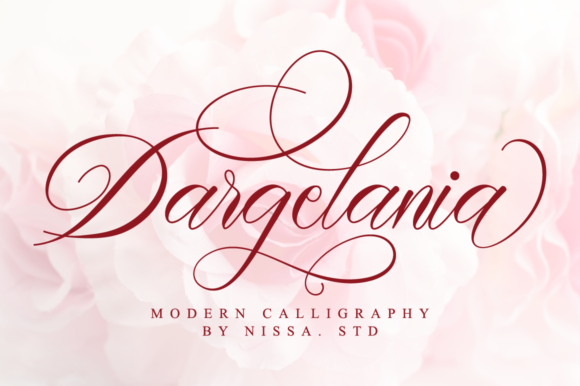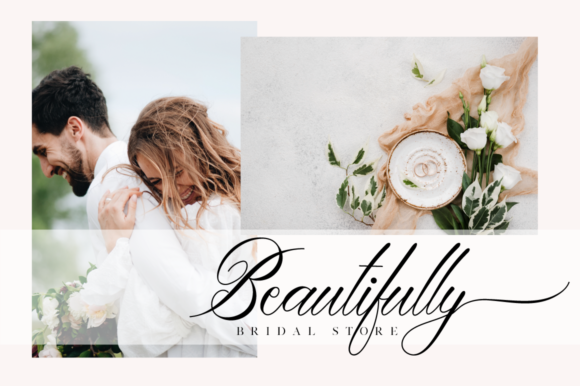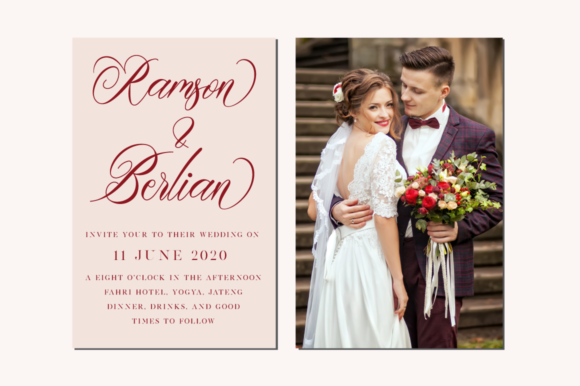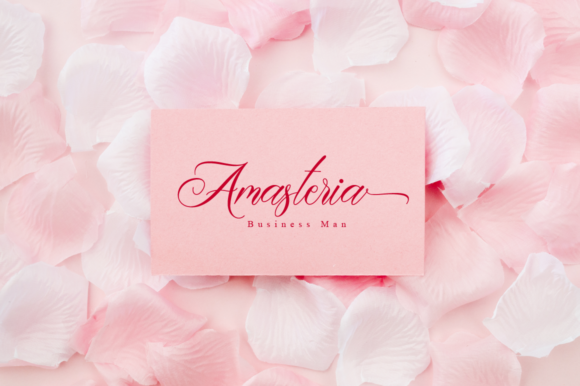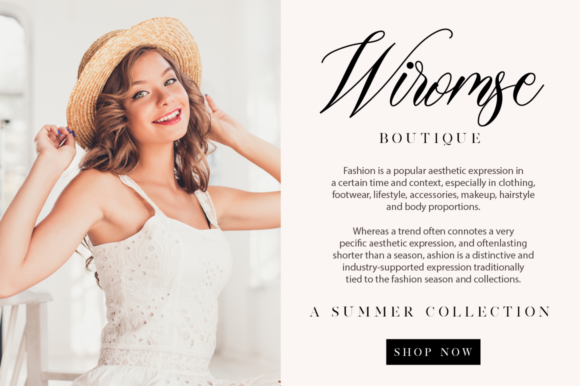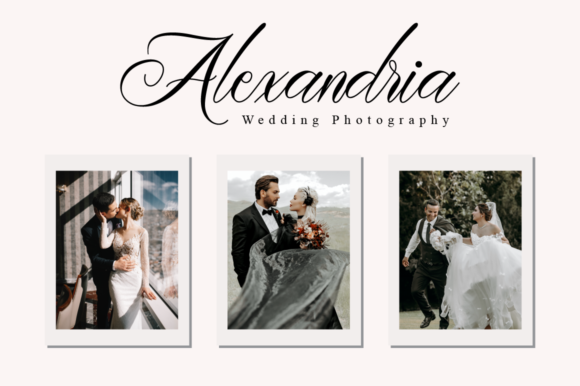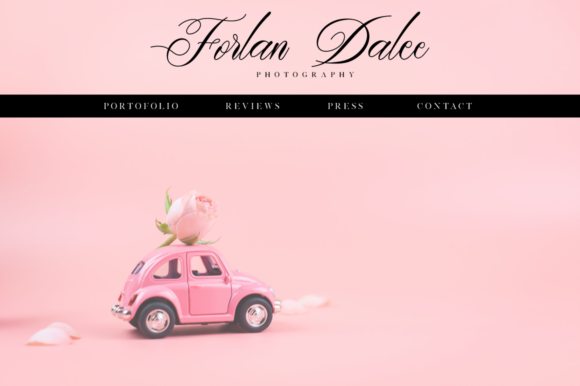
Love at First Sight: Unveiling the Dargelania Font
You know that moment when you stumble upon a font that makes your design heart skip a beat? For many designers, that moment is exactly what Dargelania Font embodies. This stunning font is a masterclass in elegance and charm, boasting a unique blend of smooth lines, gorgeous glyphs, and stunning alternates that will elevate any design project.
As a designer, you’re always on the lookout for that special something that sets your work apart. The Dargelania Font delivers, with its PUA encoding allowing you to access all the glyphs and swashes with ease. Whether you’re creating wedding invitations, social media posts, or stationery art, this font’s versatility will make your designs shine.
- Unique Characteristics: The font features a unique, handwritten style with a touch of elegance and sophistication, making it perfect for use in creative and artistic projects.
Dargelania Font Review
I recently had the chance to work with the Dargelania font, and I must say it’s been an interesting experience. ✨ Here are some things that I think work well about this font.
- Unique aesthetic: Dargelania has a distinct, hand-drawn feel that sets it apart from more common fonts.
- Expressive nuances: The font’s subtle variations in letterform and stroke weight add a level of expressiveness that’s perfect for creative projects.
- Legibility: Despite its organic feel, Dargelania is surprisingly easy to read, even at smaller font sizes.
However, I also encountered some limitations that might affect your decision to use this font. ⚠️
- Limited language support: Dargelania’s character set is relatively limited, which may be a problem for projects requiring extensive language support.
- Distortion at large sizes: While legible at smaller sizes, Dargelania can become distorted and lose its charm at larger font sizes.
Overall, I think Dargelania is a great choice for creative projects where a unique, expressive font is needed. While it may not be the best fit for every project, I believe its strengths outweigh its limitations.
To maximize the impact of the Dargelania font, use it sparingly and pair it with a clean, simple font for body text. Experiment with different font sizes and styles to create visual interest.
The Dargelania font is ideal for use in: logos, titles, headings, and other design elements where a unique and striking visual impact is desired.